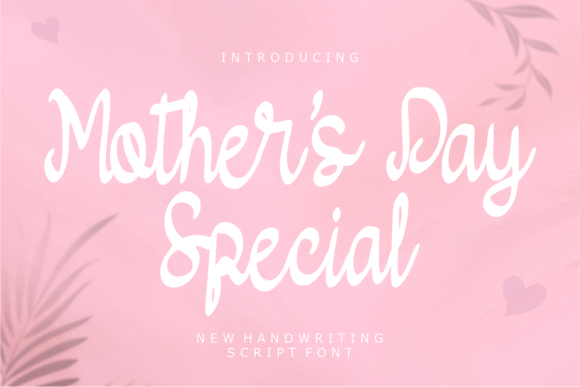
Celebrate Family with Mothers Day Special Font
There is a specific warmth that radiates from designs dedicated to motherhood. It isn't just about the words; it is about the feeling they evoke. When you are tasked with creating a card, a social media graphic, or a piece of wall art for Mother's Day, you need a typeface that does more than just sit on the page. You need a creative font that acts as a visual embrace. That is precisely where the Mothers Day Special Font enters the conversation. It is not merely a collection of letters; it is a carefully crafted display font designed to translate the concept of unconditional love into visual form.
As a designer, I often see projects where the typography feels disconnected from the emotion. A sterile sans serif font can feel too cold for a sentimental gift, while a complex script font can sometimes be illegible at small sizes. The Mothers Day Special strikes a unique balance. It features bold, friendly characters that are immediately approachable. The "special" aspect comes from the delicate heart details integrated into the letterforms. These are not tacky or overwhelming; they are subtle accents that add personality without sacrificing the integrity of the design. This makes it a versatile premium font that bridges the gap between playful and sophisticated.
Visual Character and Design Details
Let’s look closer at the anatomy of this typeface. The visual style leans heavily into a friendly, semi-bold aesthetic. Unlike a traditional serif font which might feel too formal or dated for modern family celebrations, this font uses rounded edges and open counters to create a sense of inclusivity. The heart motifs are usually found on specific terminals or as decorative swashes, allowing you to choose how much "love" you want to inject into the design. It is a masterclass in thematic typography without becoming a novelty item that looks cheap. This attention to detail is what separates a commercial font designed by professionals from free alternatives found online.
The personality of the Mothers Day Special Font is inherently sentimental. It carries a tone that is nostalgic yet modern. When you use it, you aren't just setting a headline; you are establishing a mood. It works beautifully for logo design for family-centric brands, but it really shines in editorial design. Imagine opening a magazine spread or a blog post about family recipes; this font sets the stage before the reader even processes the content. It signals that the content inside is personal, caring, and worth the reader's time.
Practical Applications Across Industries
For entrepreneurs and small business owners, the utility of a premium font like this extends far beyond a single holiday. While it is named for Mother's Day, the underlying theme of love makes it perfect for year-round applications. If you are in the wedding industry, this font is excellent for save-the-dates or bridal shower invitations. If you run a bakery or a gift shop, consider using it for your packaging design. A label featuring the Mothers Day Special Font immediately communicates that the product inside is made with care.
Digital creators and marketers will find this creative font invaluable for social media graphics. In a fast-scrolling environment, a bold, heart-accented header stops the thumb. It is legible enough for Instagram stories and distinct enough for Pinterest pins. Because it is a display font, it commands attention in short bursts—perfect for quotes, sale announcements, or event headers. However, it is equally effective in web design, particularly for hero sections on landing pages targeting families or lifestyle audiences.
For crafters and hobbyists, the font opens up a world of DIY projects. Think about nursery wall art. You want something that grows with the child—playful enough for a baby's room but stylish enough not to clash with evolving decor. The Mothers Day Special fits this niche perfectly. It also pairs exceptionally well with other typefaces. If you are looking for a font pairing, try combining it with a clean, geometric sans serif font for body text. The contrast allows the display font to shine without overwhelming the reader, ensuring your visual hierarchy remains intact.
Strategic Implementation and Brand Identity
Choosing the right font is a strategic decision that influences brand perception. If your brand identity revolves around family values, warmth, and celebration, the Mothers Day Special Font can become a cornerstone of your visual language. However, consistency is key. Using this font sporadically can confuse your audience. Instead, reserve it for high-impact moments: holiday campaigns, major announcements, or hero graphics. This builds recognition. When your audience sees those distinct heart details and bold strokes, they will immediately associate it with the positive feelings your brand cultivates.
When testing the font, pay attention to readability. While it is designed to be friendly, decorative fonts can sometimes lose legibility at very small sizes or when placed over busy backgrounds. Always test your designs on multiple devices. Does it render well on mobile screens? Does the color contrast support the font's weight? These practical checks ensure that your design remains professional and accessible.
Ultimately, the Mothers Day Special Font is more than just a seasonal tool. It is a versatile design asset that captures the essence of human connection. Whether you are a blogger designing a header image, a marketer crafting an email campaign, or a crafter making a personalized gift, this typeface provides the perfect foundation. It ensures that your designs don't just look good—they feel like a warm hug.